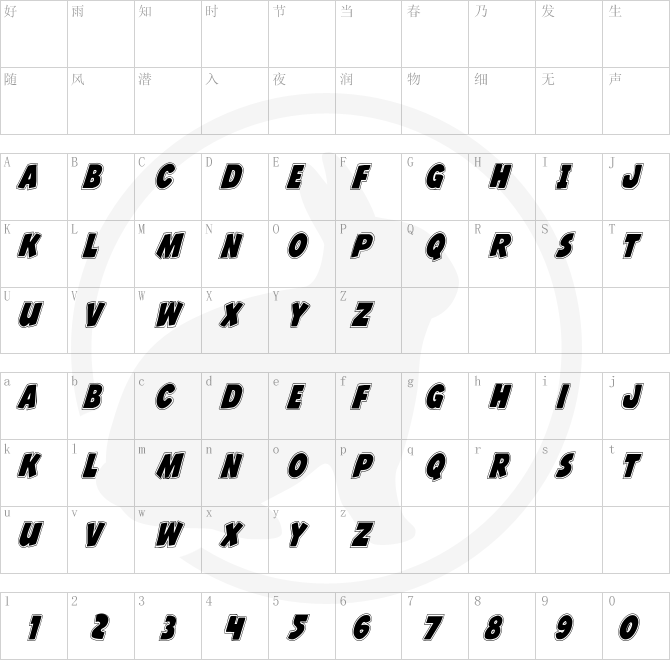
- Font Name:Jack's Candlestick Academy Condensed
Jack-s-Candlestick-Academy-Condensed.ttf is a very beautiful artistic font, Jack-s-Candlestick-Academy-Condensed.ttf is widely used in the design and printing of various books and pictures,Jack-s-Candlestick-Academy-Condensed.ttf has a strong visual impact,Jack-s-Candlestick-Academy-Condensed.ttf is a commonly used font in newspapers, magazines and books, and is used in posters, e-commerce Poster design, store design, logo design, font design and other fields.Jack-s-Candlestick-Academy-Condensed.